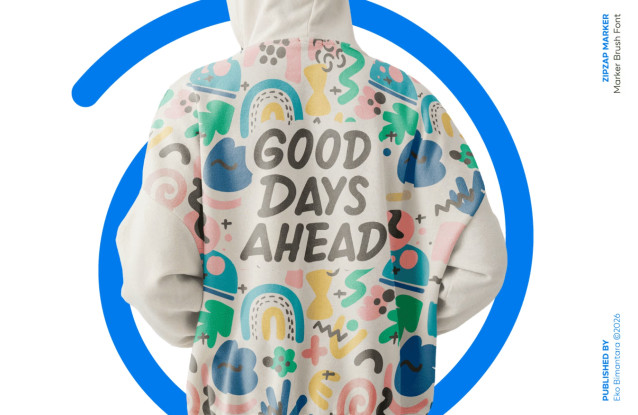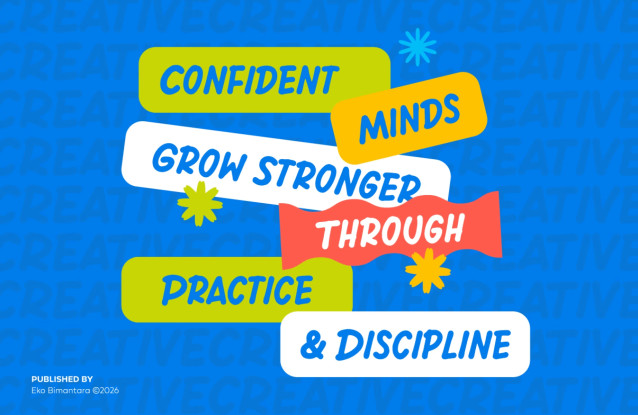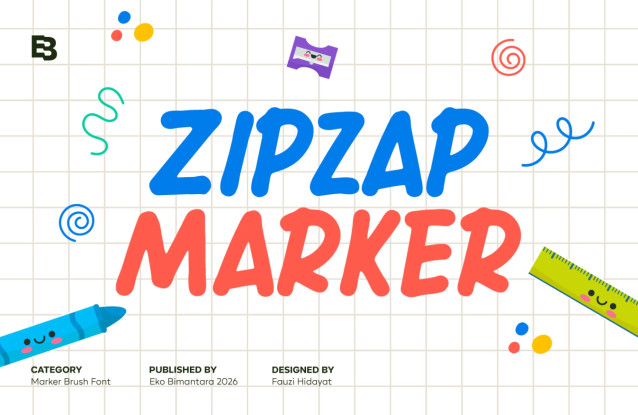
ZipZap Marker Font is a playful brush-style display typeface that captures the energetic spirit of hand-drawn marker lettering. With its bold strokes, slightly irregular edges, and playful rhythm, it conveys a sense of spontaneity and creativity while maintaining strong legibility. The lively character shapes and dynamic flow make it ideal for children’s content, educational materials, posters, packaging, and branding that aims to feel approachable and fun.
ZipZap Marker balances expressive personality with functional clarity, offering designers a versatile typeface that brings color, movement, and a cheerful voice to any visual composition.